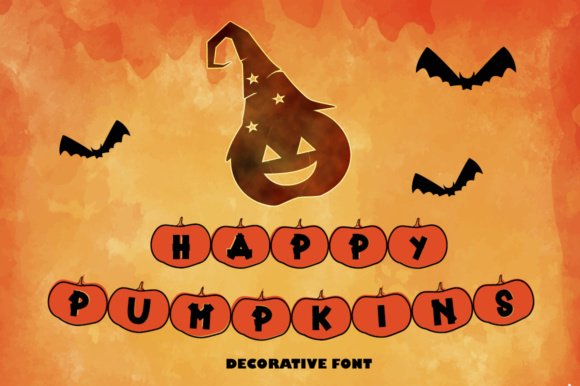
Get Ready to Spice Up Your Designs with Happy Pumpkins Font
As a designer, have you ever felt stuck when trying to come up with a creative solution for a seasonal project? You know, that moment when you’re brainstorming ideas for a Halloween-themed poster or a fall-themed invitation, and you just can’t seem to find the right font to capture the festive spirit?
Well, put down your pumpkin spice latte and take a deep breath, because we’ve got just the thing to get your creative juices flowing: the Happy Pumpkins Font! This unique decorative font is designed to add a touch of whimsy and wonder to your designs, with its fancy pumpkin shapes and playful charm. Whether you’re working on posters, display banners, invitation cards, or merchandise, the Happy Pumpkins Font is the perfect way to add some seasonal flair to your projects.
Happy Pumpkins Font Key Features
- Font Family: Happy Pumpkins, a unique and playful font designed for Halloween and autumn-themed projects.
- Unique Characteristics: Features intricate pumpkin-inspired designs, swashes, and flourishes, adding a touch of whimsy and personality to your designs.
Designer Review: Happy Pumpkins Font
Overall, I’d say Happy Pumpkins Font is a fun and playful addition to any project that needs a seasonal touch. The design is ✨ well-balanced, with bold lines and rounded shapes that evoke a sense of autumnal joy. The font is highly legible, even at smaller sizes, making it a great choice for titles, headings, and short paragraphs.
One of the standout features of Happy Pumpkins Font is its versatility. It can be used in a variety of contexts, from Halloween-themed decorations to harvest-themed marketing materials. The font is also highly customizable, allowing designers to adjust the color, size, and style to suit their needs.
- ⚠️ Limited character set: Happy Pumpkins Font is a display font, and it doesn’t include a comprehensive character set. This may make it difficult to use for longer blocks of text or for languages that require a wider range of characters.
- ⚠️ Limited font sizes: While Happy Pumpkins Font is highly legible, it may not be the best choice for very large or very small font sizes. At sizes above 48pt, the font can become distorted, while sizes below 12pt may be difficult to read.
Overall, I’d give Happy Pumpkins Font 4 out of 5 stars. It’s a fun and versatile font that’s perfect for adding a seasonal touch to any project. However, its limitations may make it less suitable for certain types of projects or applications.
Getting the Most Out of the Happy Pumpkins Font
To get the most out of the Happy Pumpkins Font, try using it for seasonal designs, such as Halloween or Thanksgiving invitations, social media graphics, or printables.
Experiment with different font sizes, colors, and styles to create a unique and eye-catching design.
Combine the Happy Pumpkins Font with other seasonal graphics, such as pumpkins, leaves, or fall-themed illustrations, to create a cohesive and festive design.
The Happy Pumpkins Font is perfect for:
Seasonal invitations and social media graphics
Printables, such as stickers or labels
Designs for Halloween, Thanksgiving,
Alternatives to Happy Pumpkins Font
Great Vibes is a playful, handwritten font perfect for creating a whimsical atmosphere. It’s ideal for designing invitations, greeting cards, or social media graphics that require a carefree and lively tone.
Compared to Happy Pumpkins Font, Great Vibes has a more elegant and refined feel, making it suitable for a broader range of designs. While Happy Pumpkins Font is more rustic and earthy, Great Vibes is more versatile and can be used in various contexts.
Q: What is the character set of the Happy Pumpkins Font?
The Happy Pumpkins Font includes a standard character set, including uppercase and lowercase letters, numbers, and punctuation marks. It also includes some special characters and symbols, but it does not include Cyrillic or other non-Latin scripts.